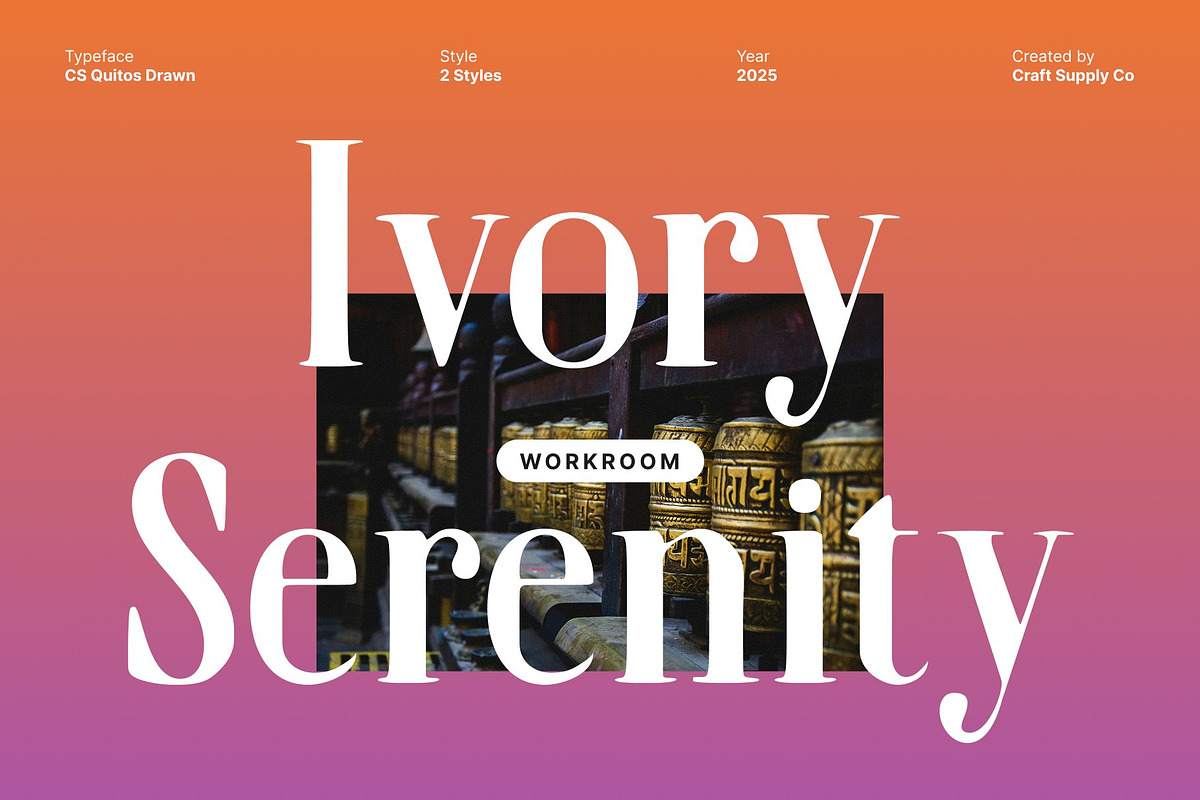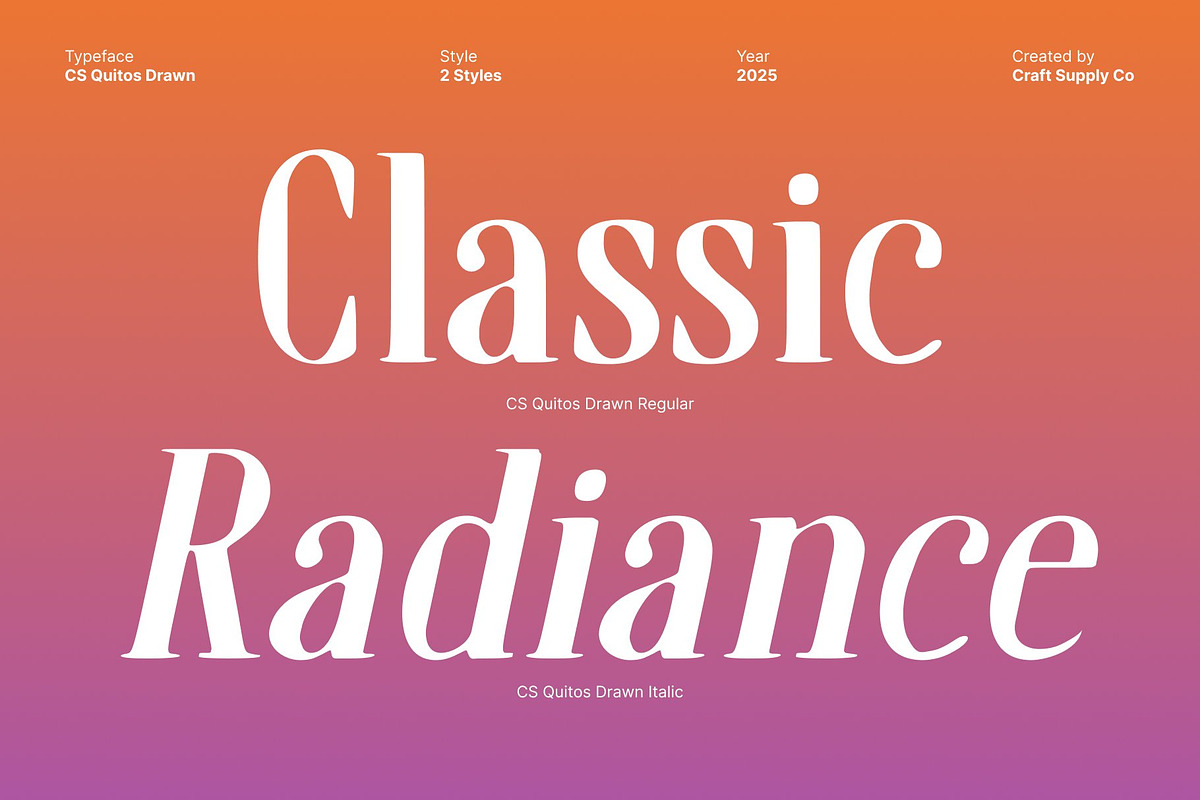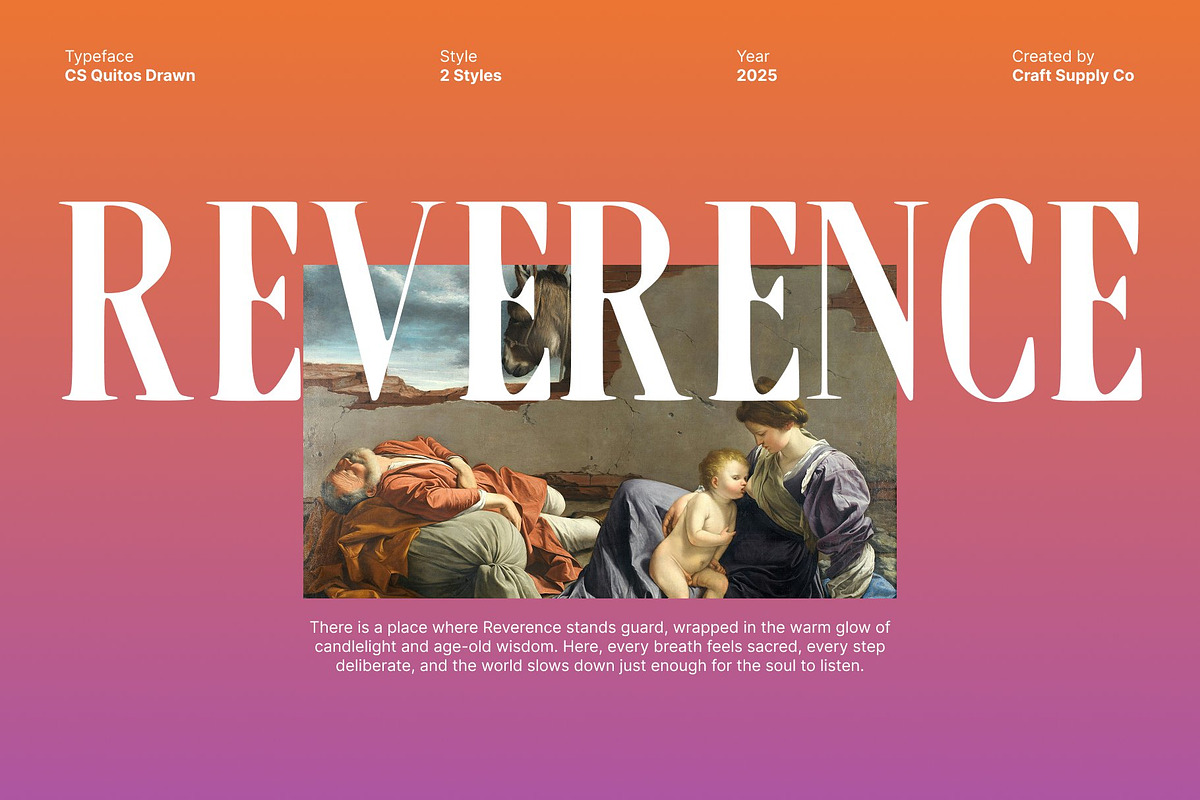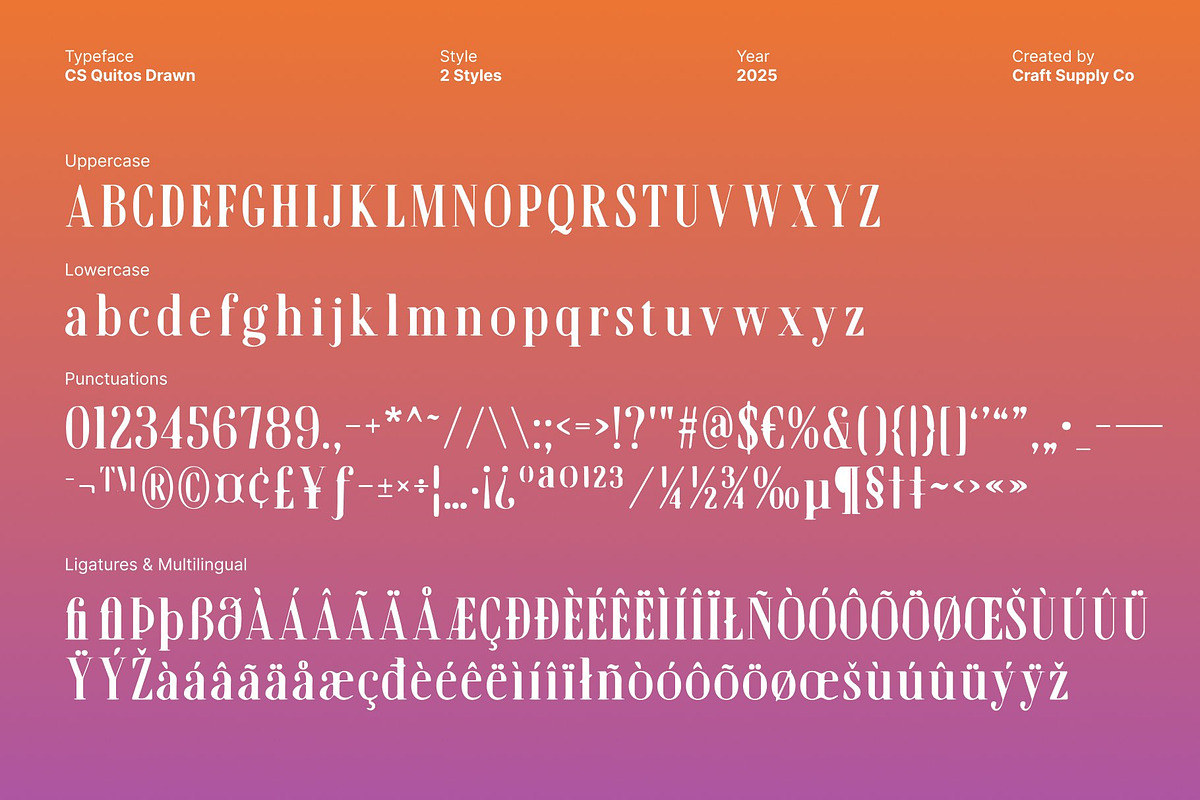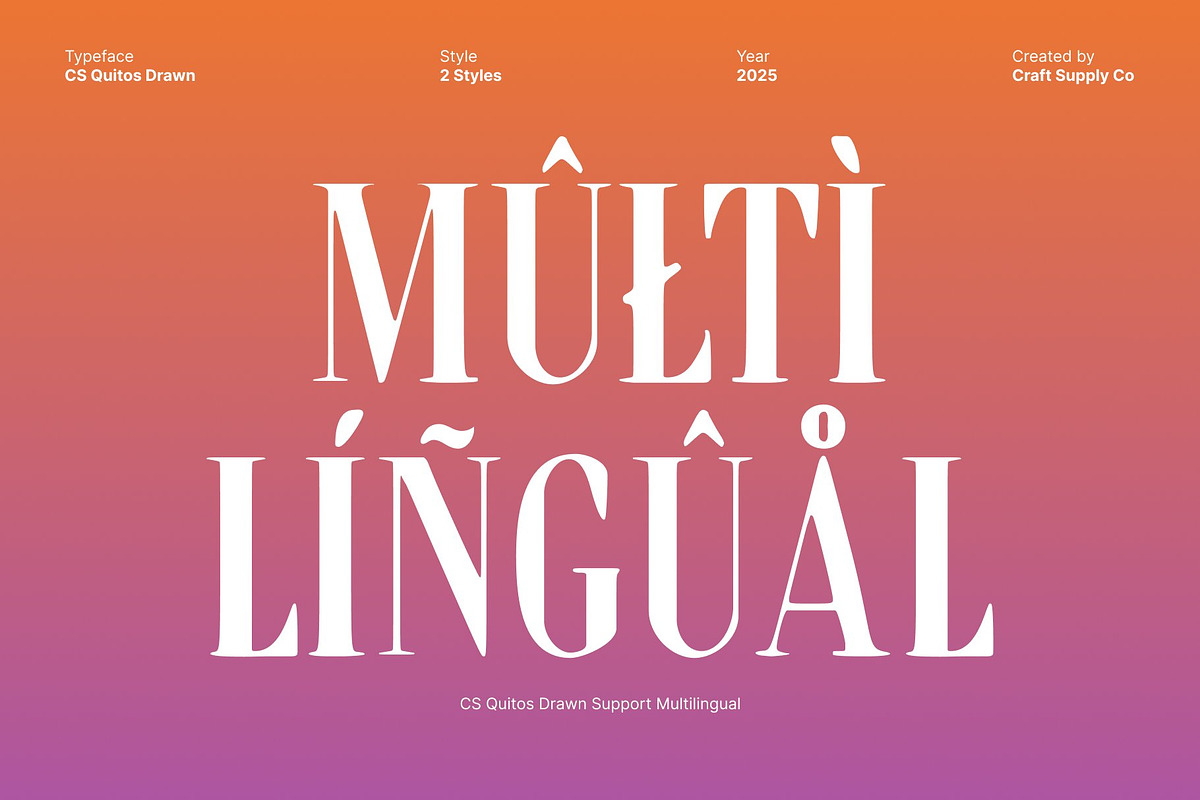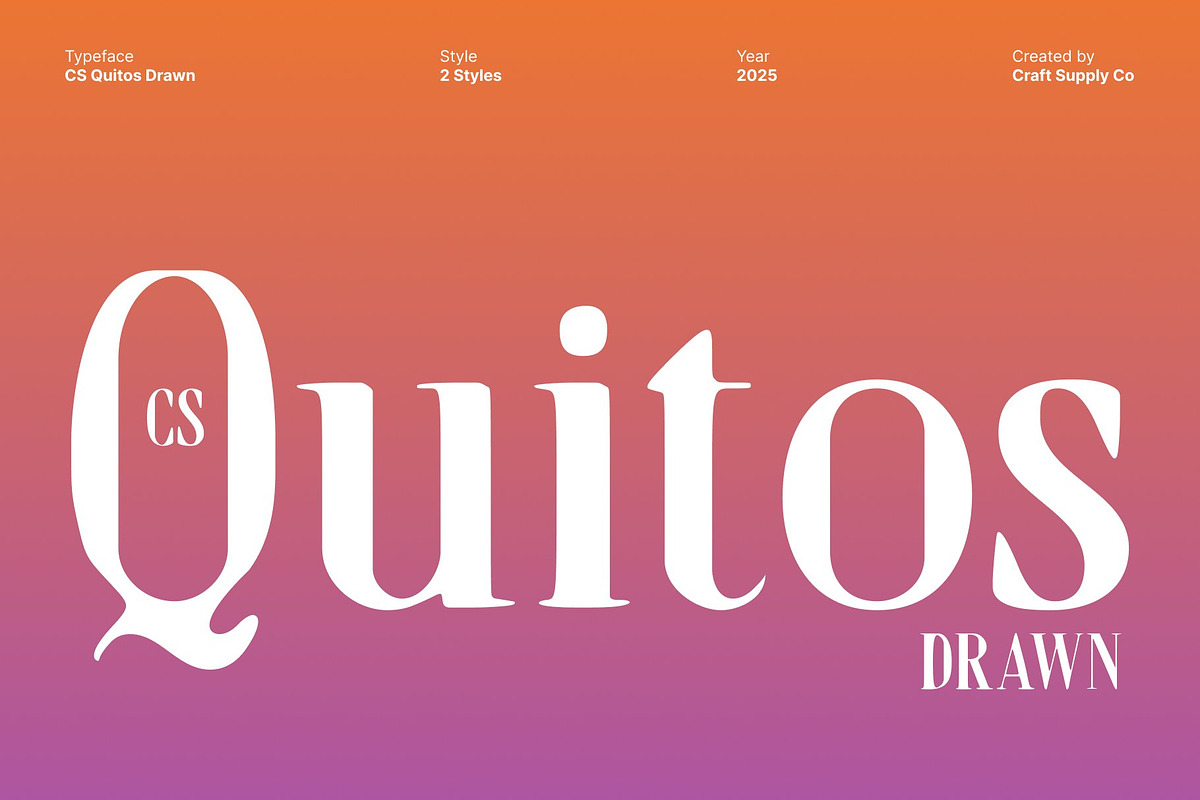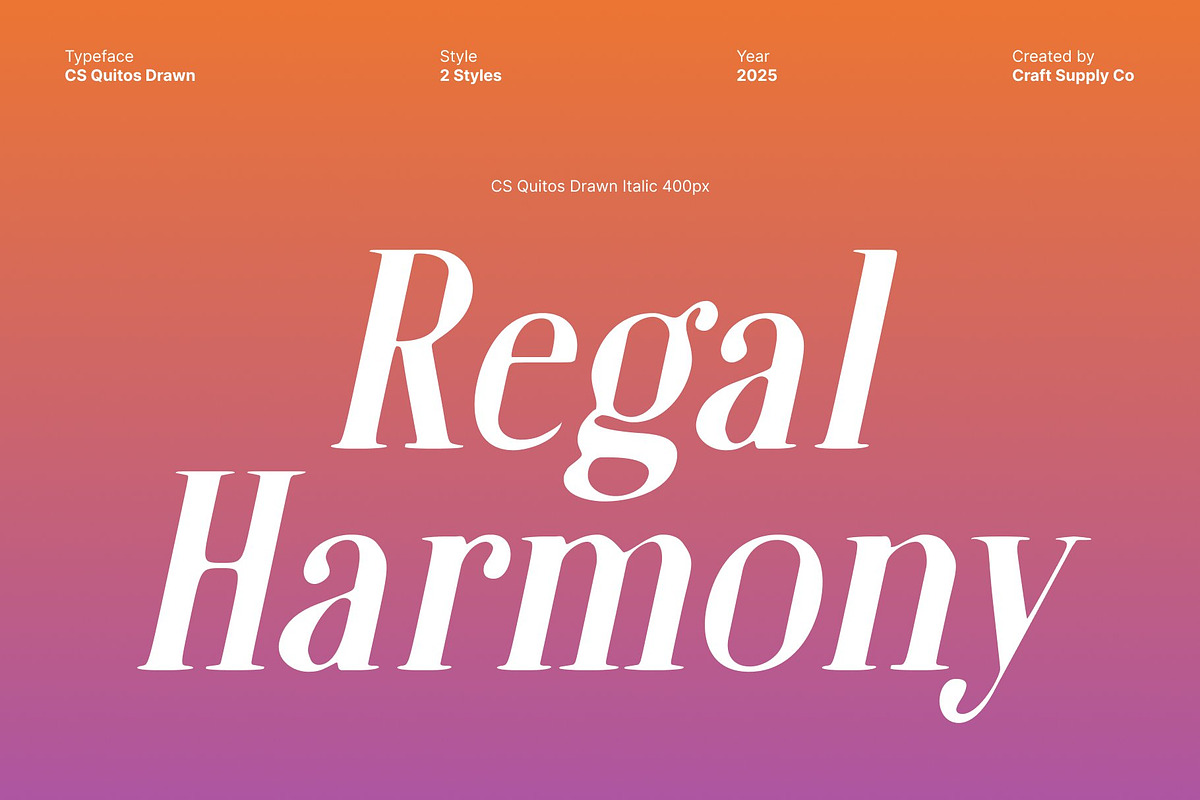
CS Quitos Drawn
CS Quitos Drawn – Renaissance-Inspired Serif with Artistic Drawn Texture
Elegant Letterforms with Classical Proportions Ornamental and grand, this renaissance-inspired font features beautifully flourished serifs and balanced classical proportions. Its elegant shapes evoke the artistry and refinement of historic manuscripts, creating a sophisticated and timeless aesthetic.
Drawn Effect for Soft, Artistic Texture The drawn effect adds a handcrafted, soft texture to each character, enhancing the font’s artistic quality. This subtle, organic detailing brings warmth and personality to the typeface, transforming traditional Renaissance elegance into a visually engaging and expressive design.
Perfect for Book Covers, Posters, and Cultural Branding Ideal for literary projects, cultural branding, museum materials, posters, and editorial layouts, this font communicates sophistication, history, and creative flair. Its ornate yet approachable design ensures your projects feel both classic and artistically rich.
Artistic, Sophisticated, and Visually Captivating By merging Renaissance-inspired serif structures with soft drawn texture, this font delivers a typeface that is elegant, expressive, and visually enchanting. It’s perfect for designers seeking a historic yet artistic style that adds depth, beauty, and personality to their creative projects.
- CS Quitos Drawn Regular
- CS Quitos Drawn Italic